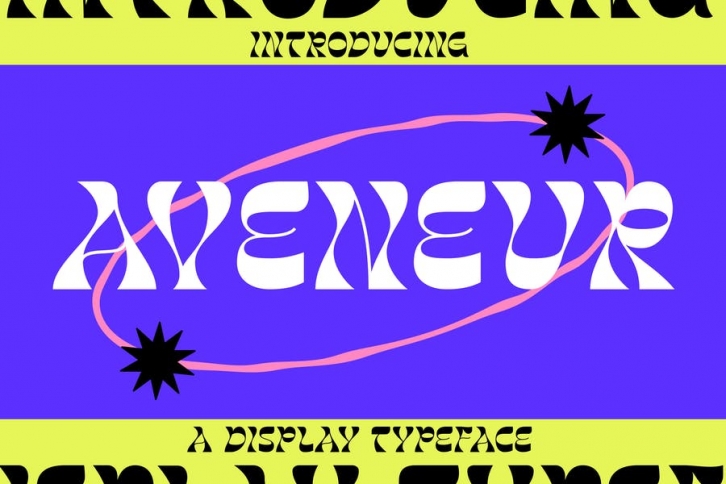
Avaneur - Unique Display FONT Download
Hello Everyone, Introduce our new collection, Avaneur - Unique Display, Inspired from Modern logos of brands that have very strong characteristics, very suitable for posters, packaging, branding, logotype and more.
Avaneur font with strong and challenging nuances. very suitable for the title, typography, Poster, magazines, brochures, packaging,Websites and much more for your design needs, making your designs more modern and professional